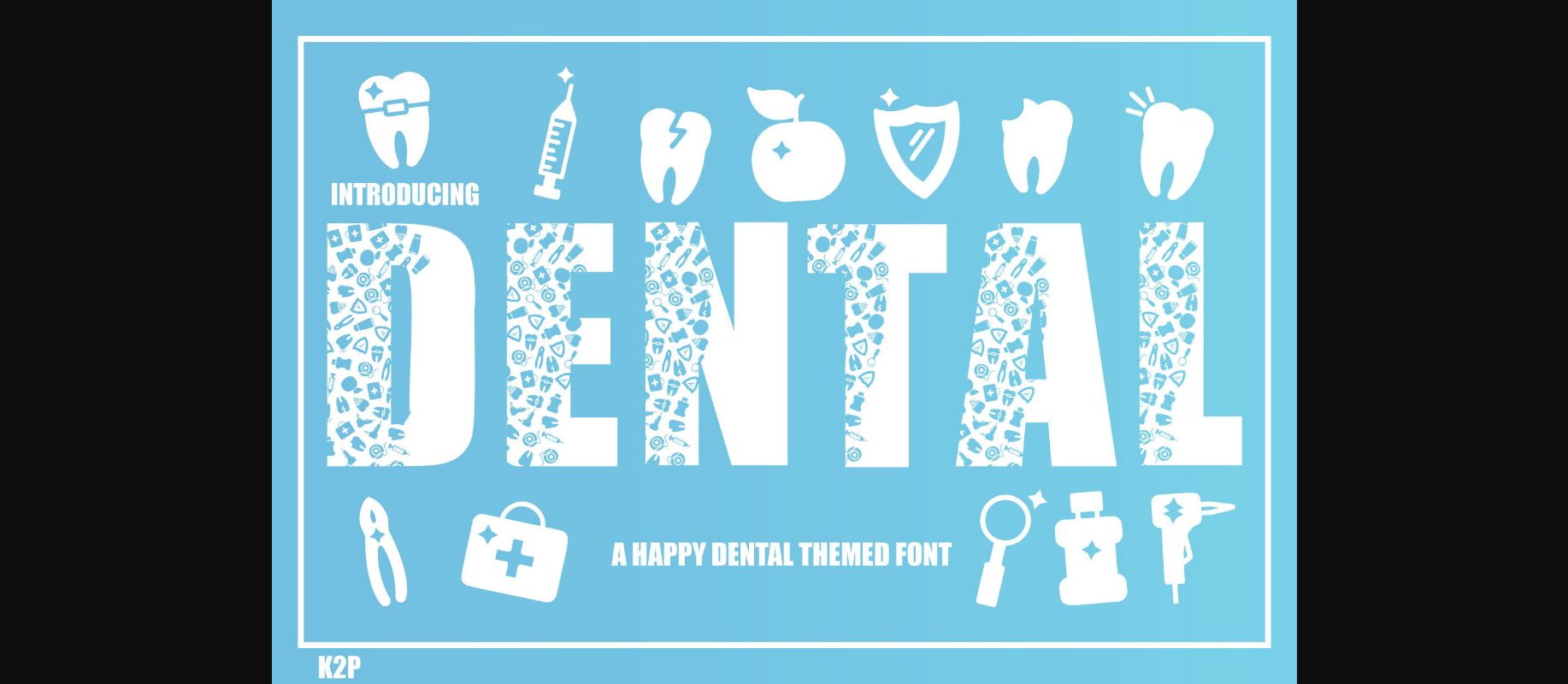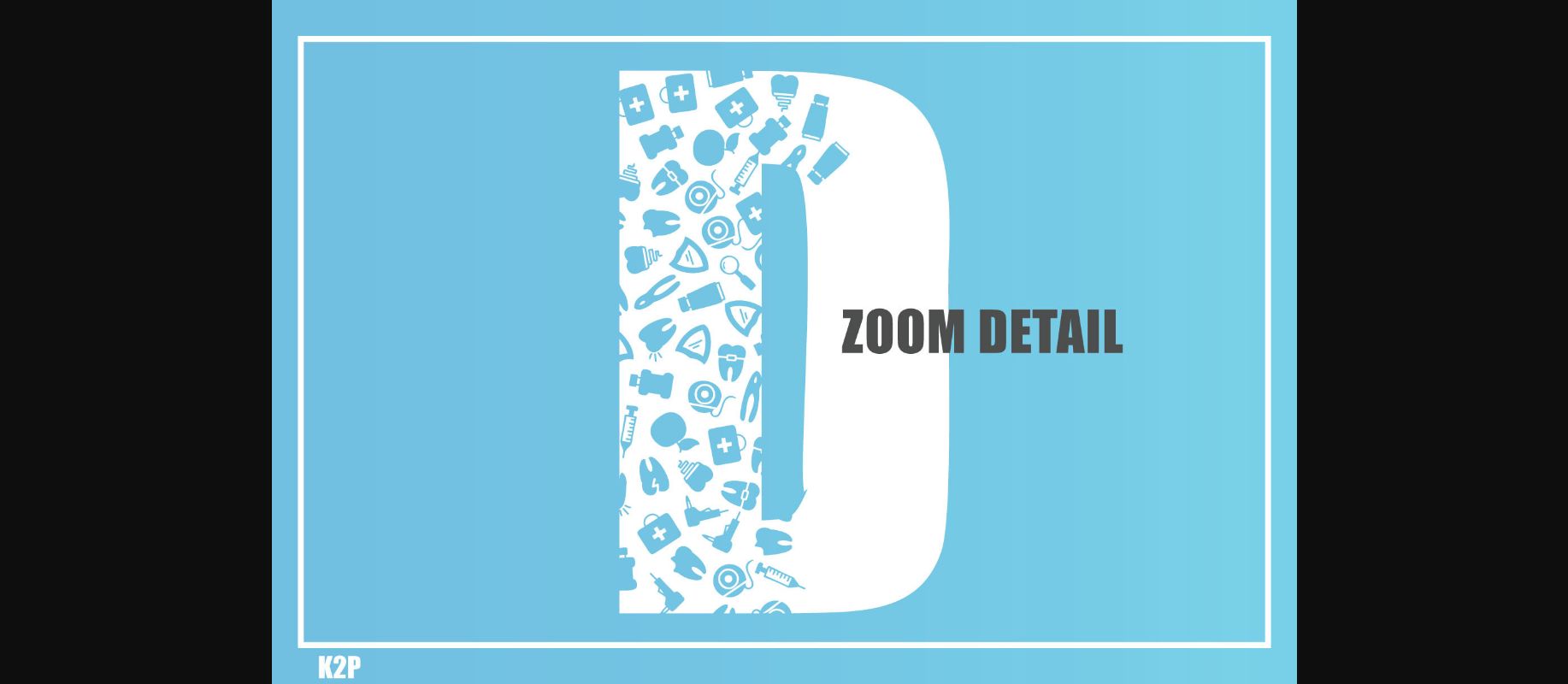
About Dental Font
Dental is a thick lettered and incredibly unique decorative font. It can be used for various design ideas, particularly those related to dentist appointments or magazine covers. This font is PUA encoded which means you can access all of the glyphs and swashes with ease!